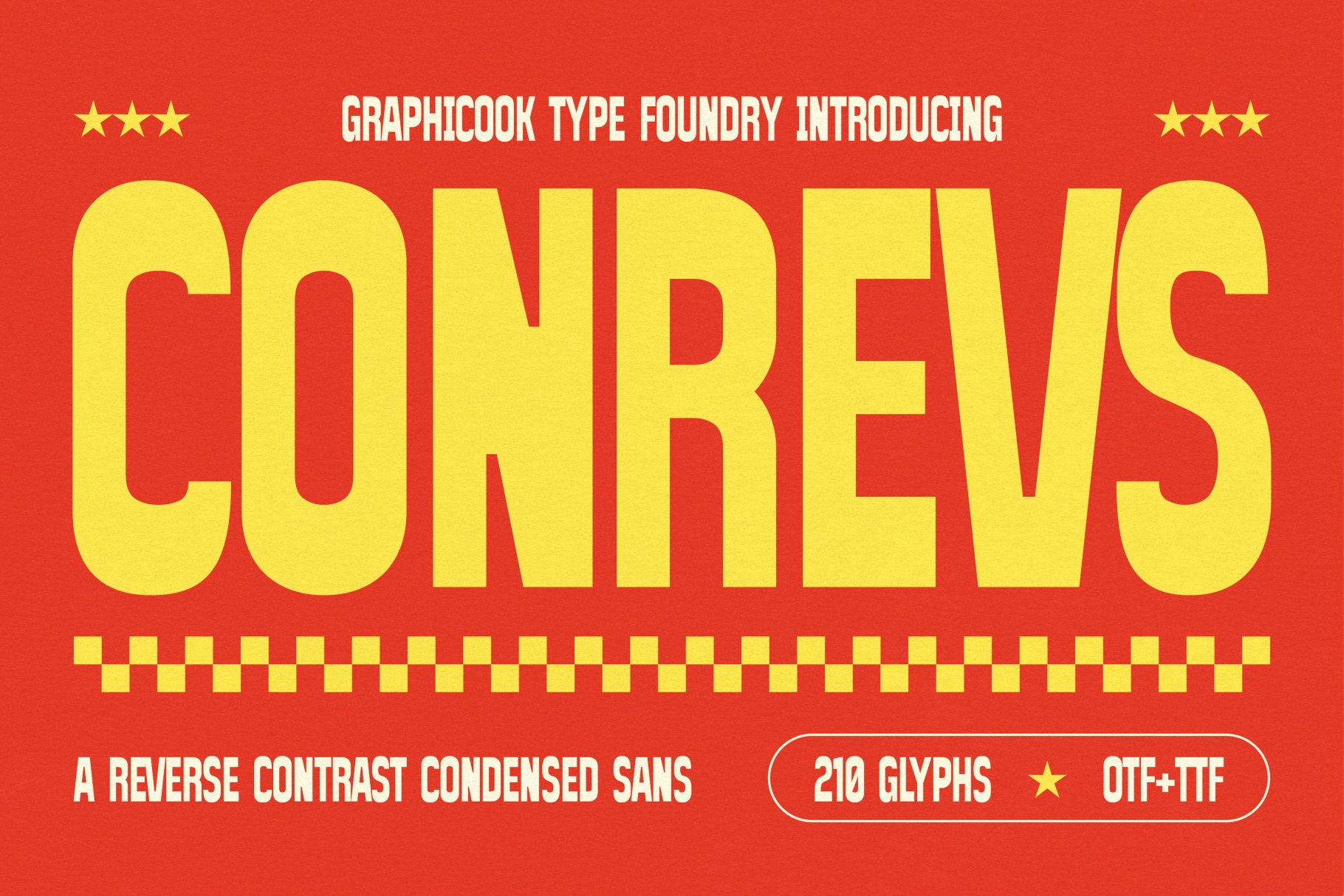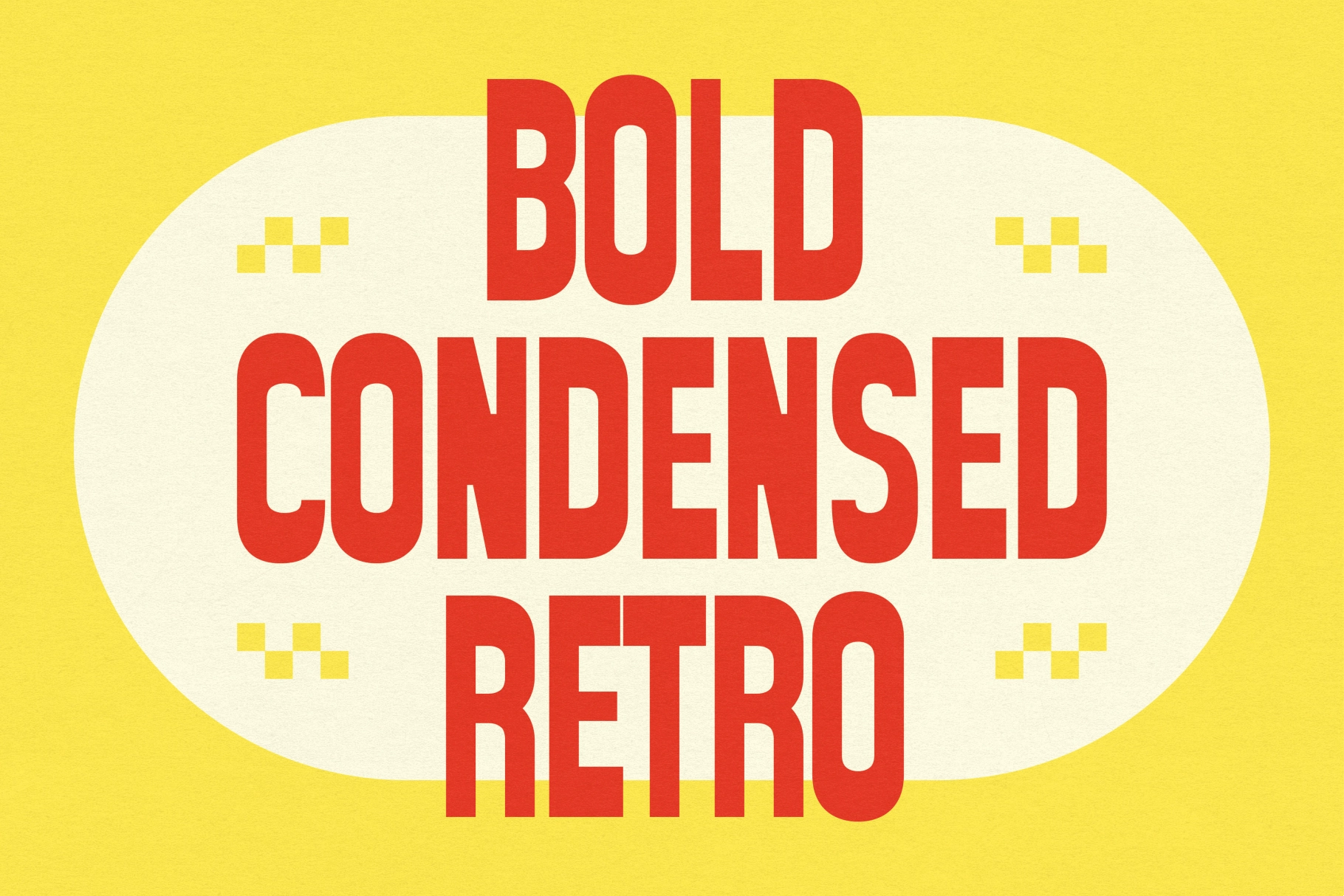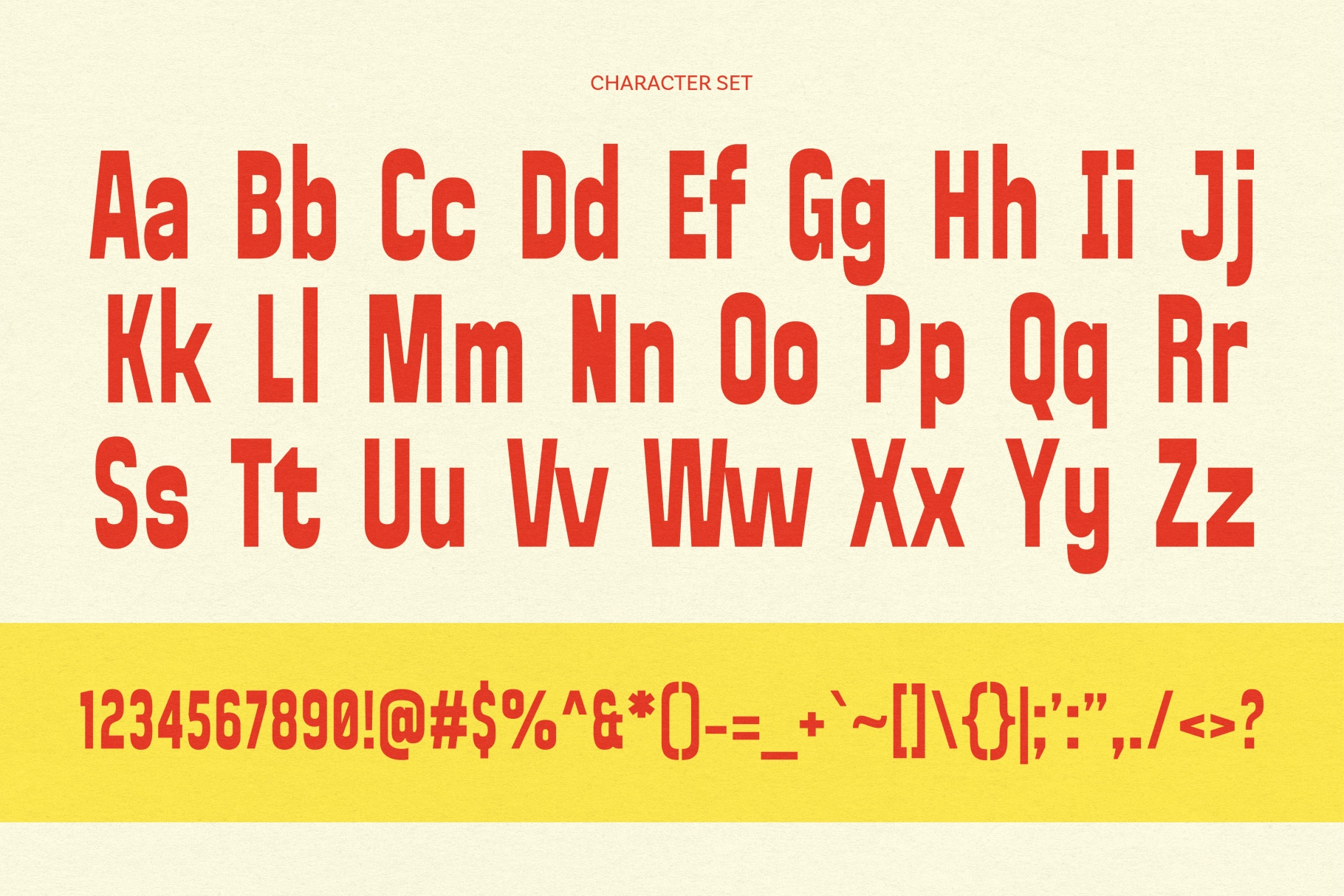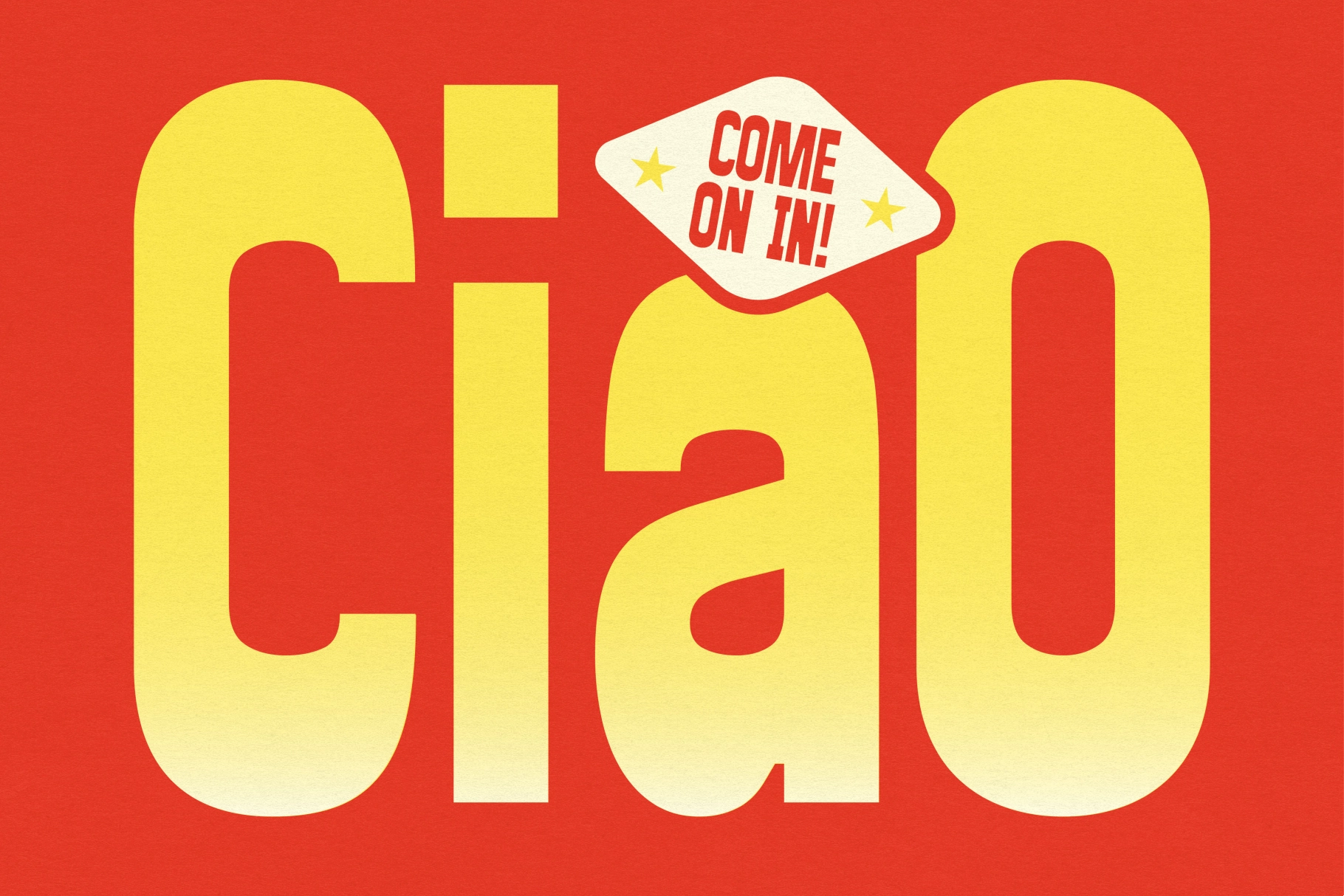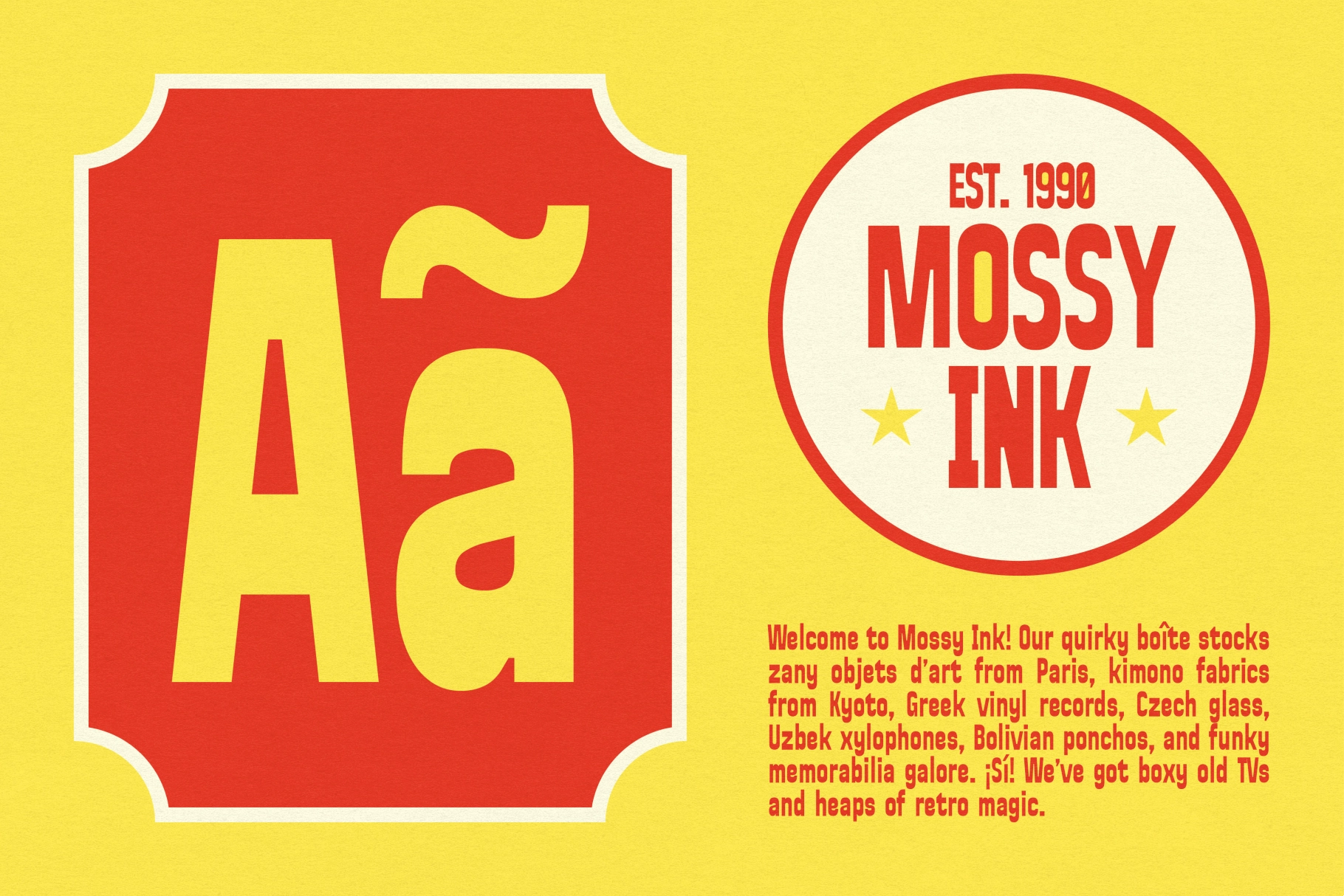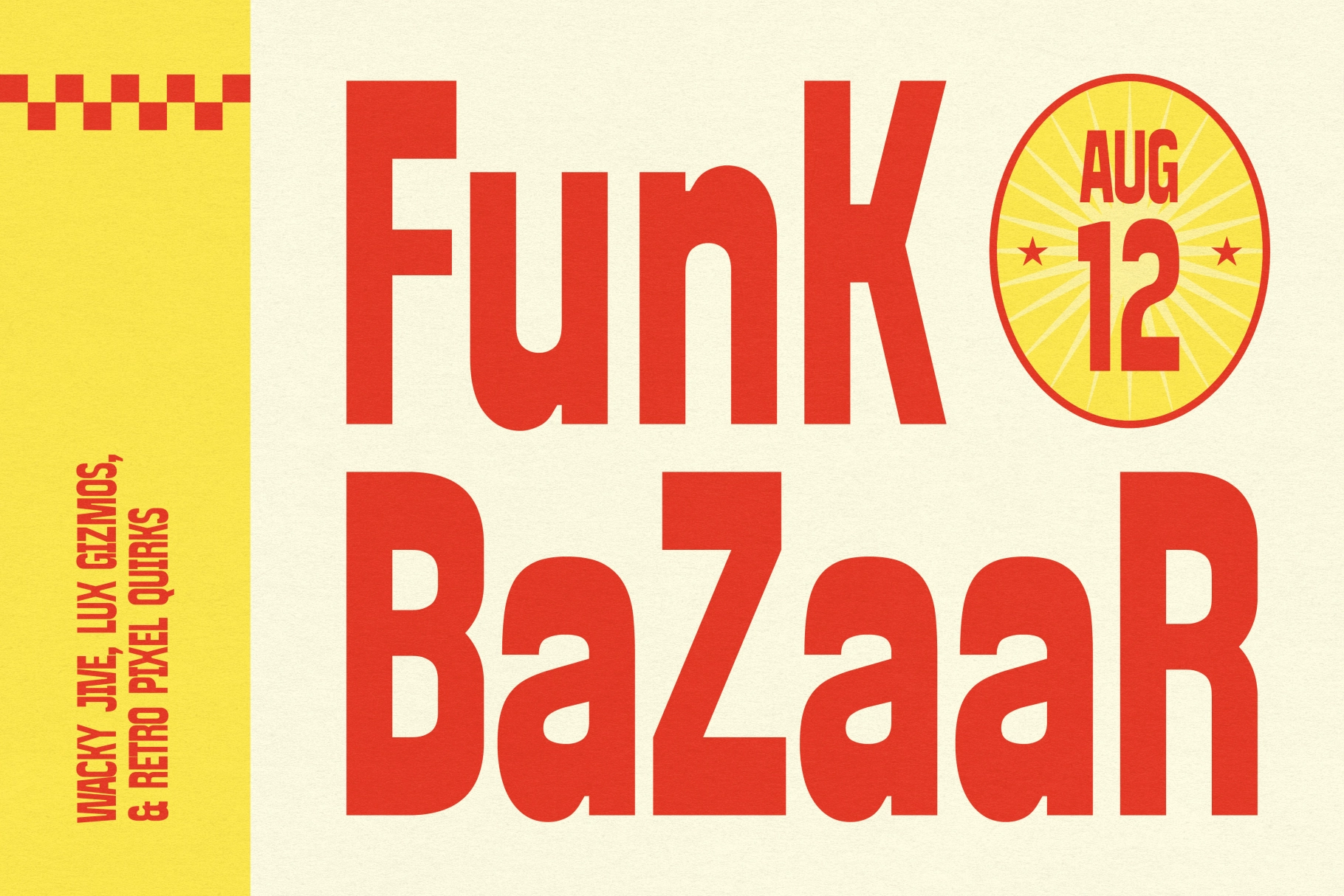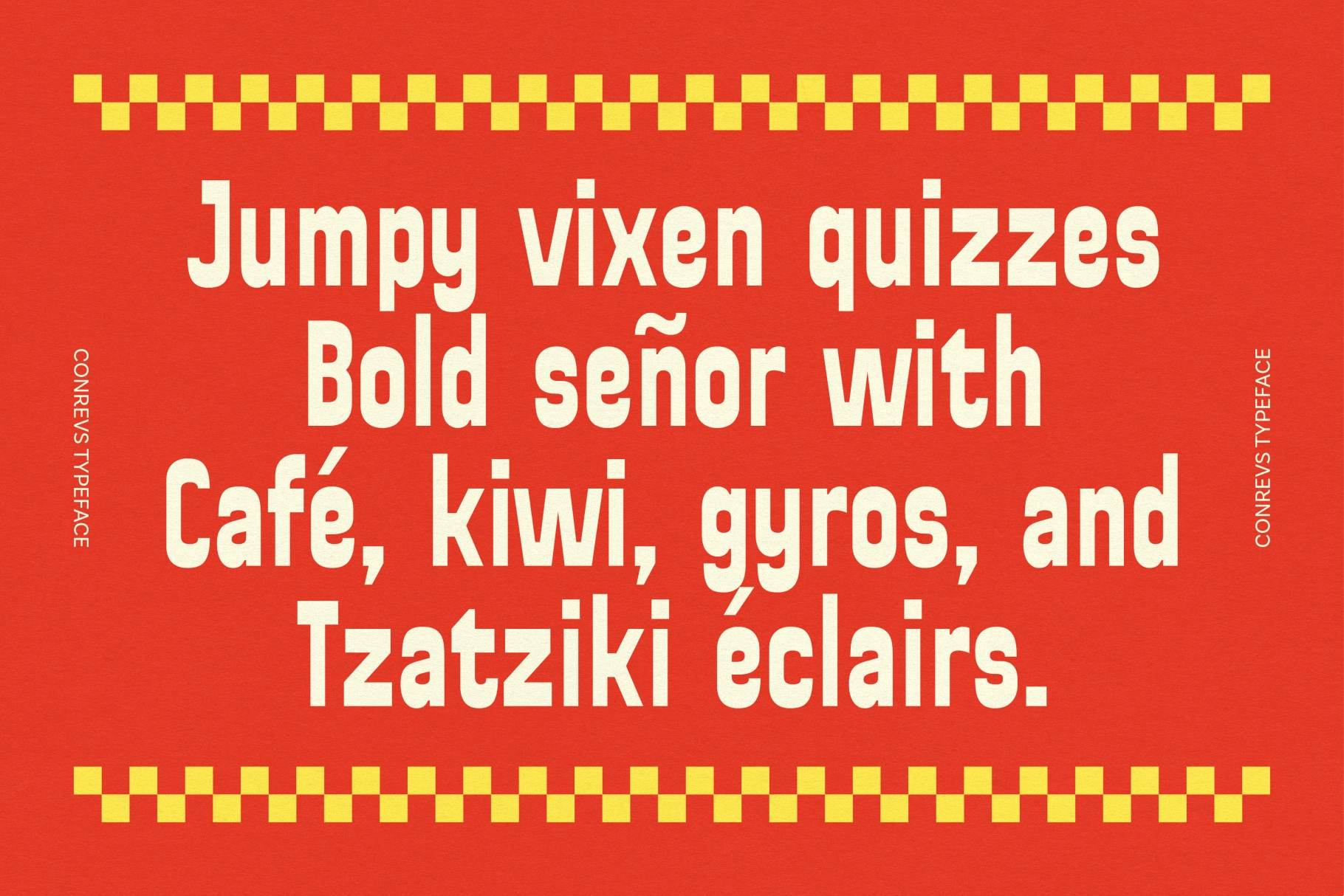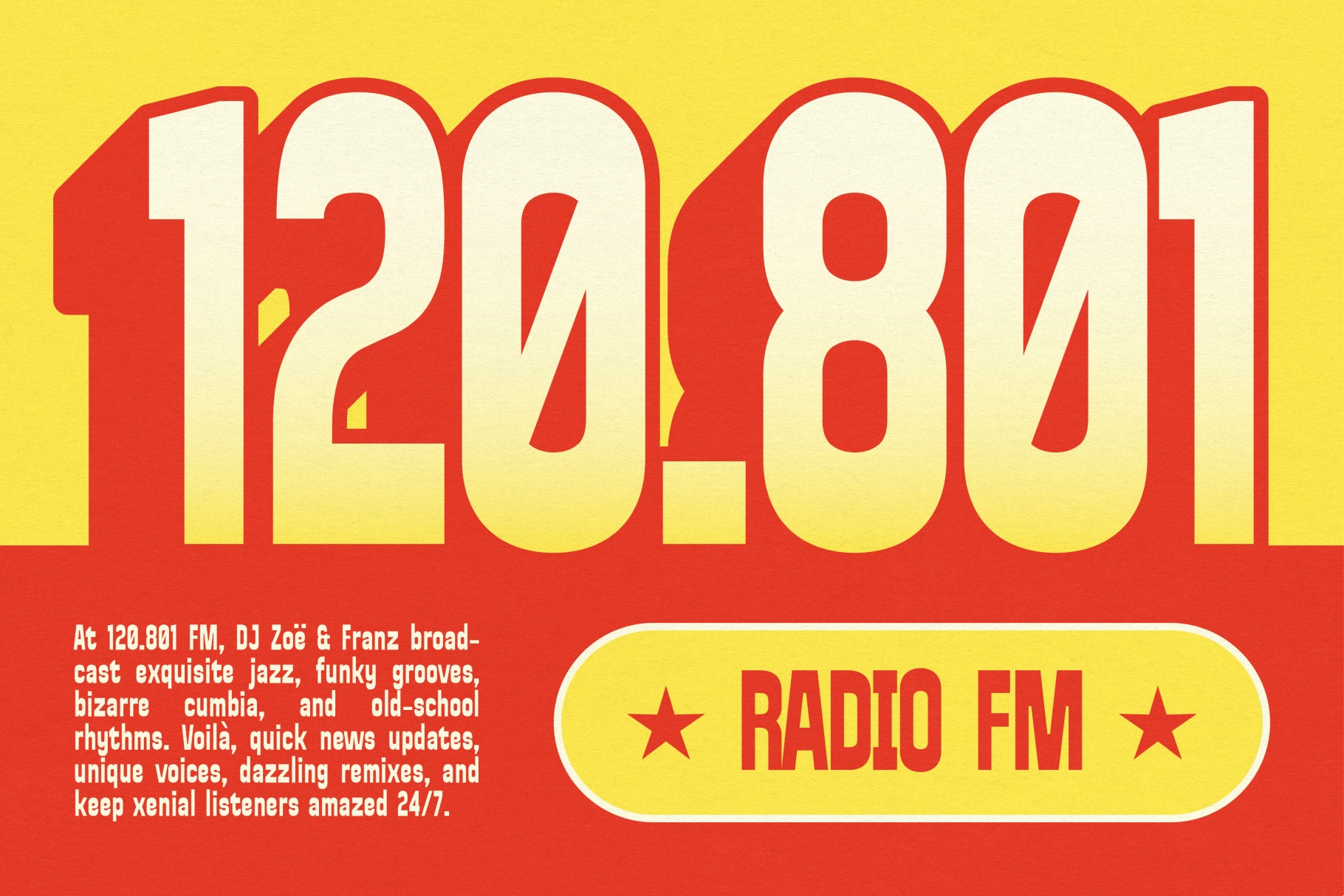
Conrevs Font
Conrevs is a bold reverse-contrast condensed font that merges modern energy with a touch of retro flair. Each character carries strong personality and movement, making it perfect for headlines, posters, and striking contemporary designs.